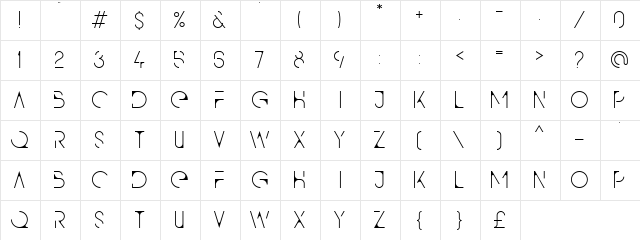
QG Regular Font Preview
QG Regular
QG Regular Font Details
Design Context for QG Typeface
QG takes a measured approach to typography — its balanced proportions and neutral character make it a reliable workhorse for both digital and print work.